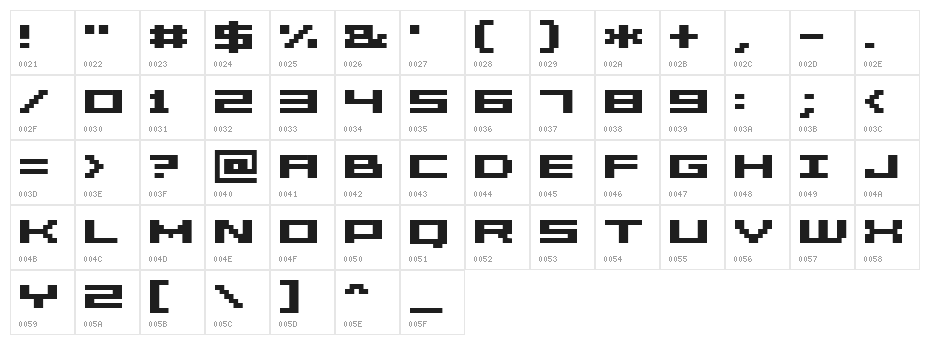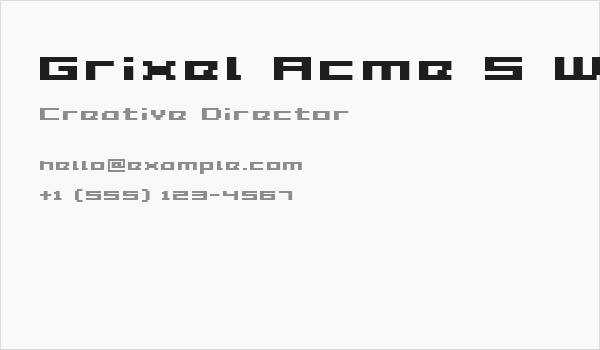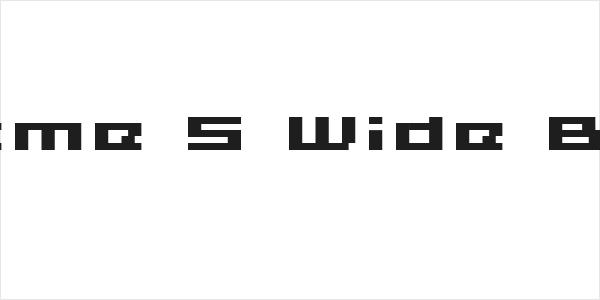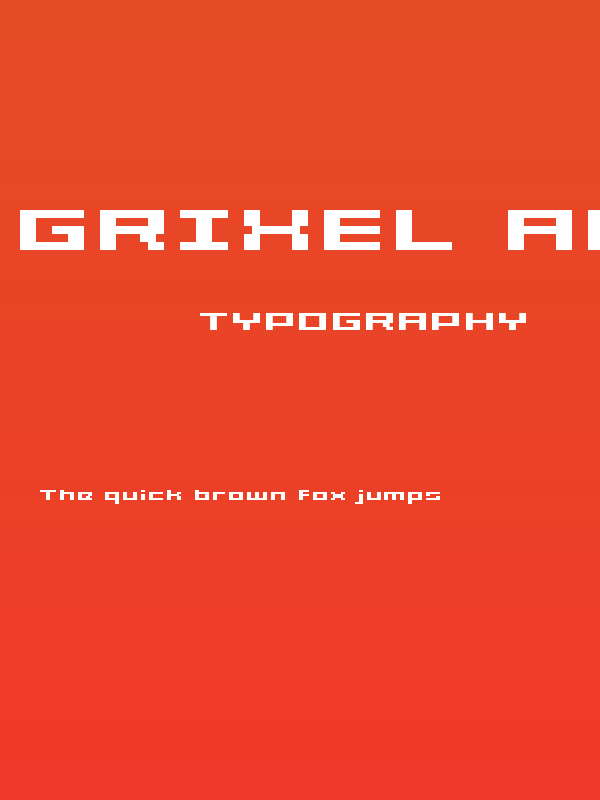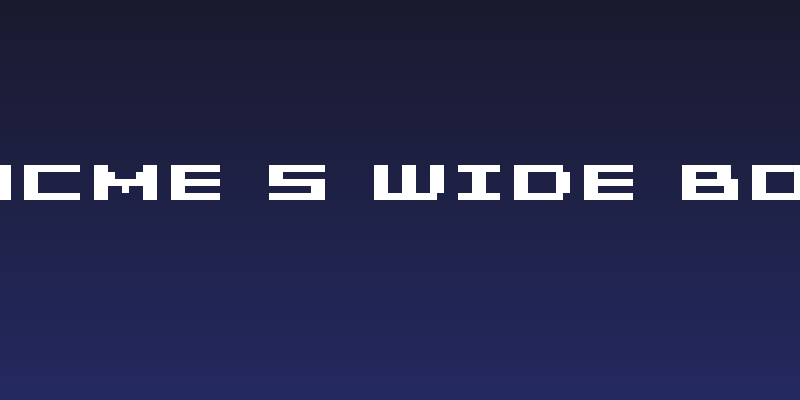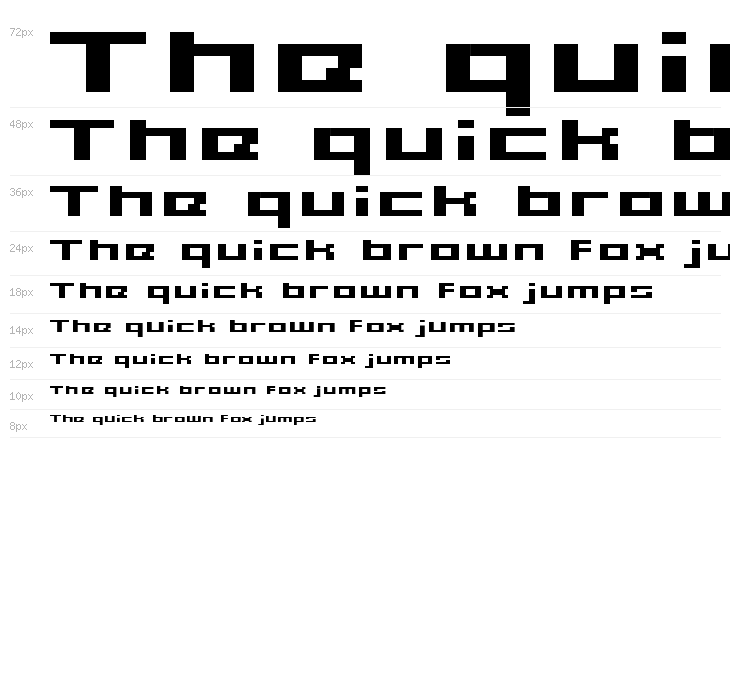
Grixel Acme 5 Wide Bold Xtnd Font
Grixel Acme 5 Wide Bold Xtnd Description
This font features a bold, pixelated design reminiscent of early digital and arcade aesthetics. Each character is constructed with a blocky, grid-like structure, giving it a distinctly retro and technological feel. The uppercase and lowercase letters maintain a consistent height, contributing to a uniform appearance across text. The numerals and special characters follow the same design principles, ensuring cohesion throughout. This font's wide letterforms and bold weight make it highly legible, even at smaller sizes, while its unique style adds a playful, nostalgic touch to any project.
| Overall Style | Retro, Digital |
| Use Case | Headlines, Logos, Display text |
| Proposed Projects | Ideal for video game graphics, retro-themed designs, digital art, and tech-related branding. |